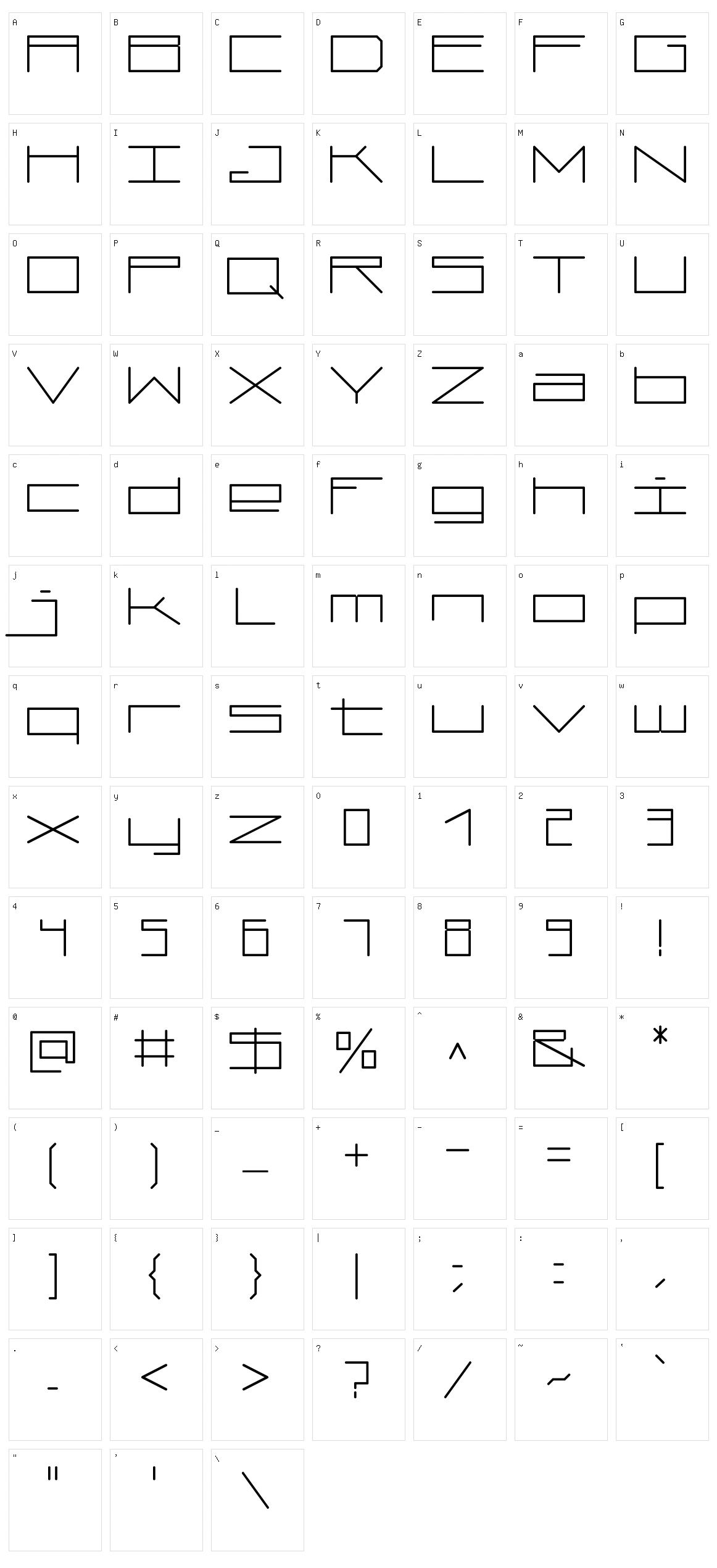
The free font Coges is carefully designed by Lerima, showcasing a thoughtful balance of creativity and usability and falls under the Square font style. When you download the ZIP file, it contains only 7.63 KB of font files, making it lightweight and quick to download. Please review the license details below to understand permitted usage and distribution rights. If license information is not available, we recommend using this font for personal projects only or contacting the author directly for commercial usage permissions.